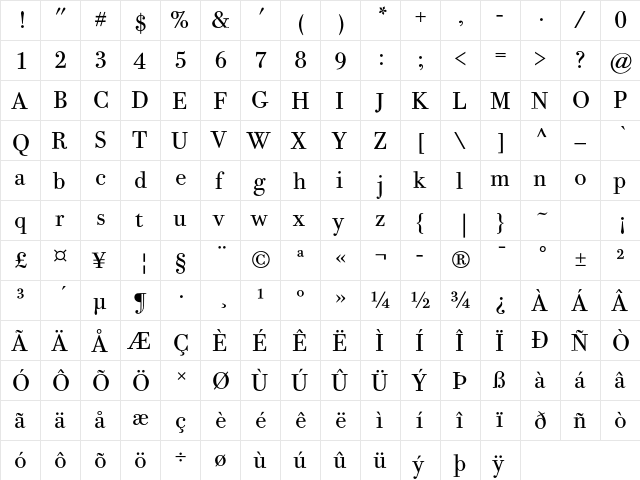
Bodoni Twelve ITC Std Book
| Designer | Janice Fishman, Holly Goldsmith, Jim Parkinson, Sumner Stone |
Design Context for Bodoni Twelve ITC Std Typeface
Bodoni Twelve ITC Std is a composed and adaptable typeface that performs quietly and consistently across a wide range of design contexts.